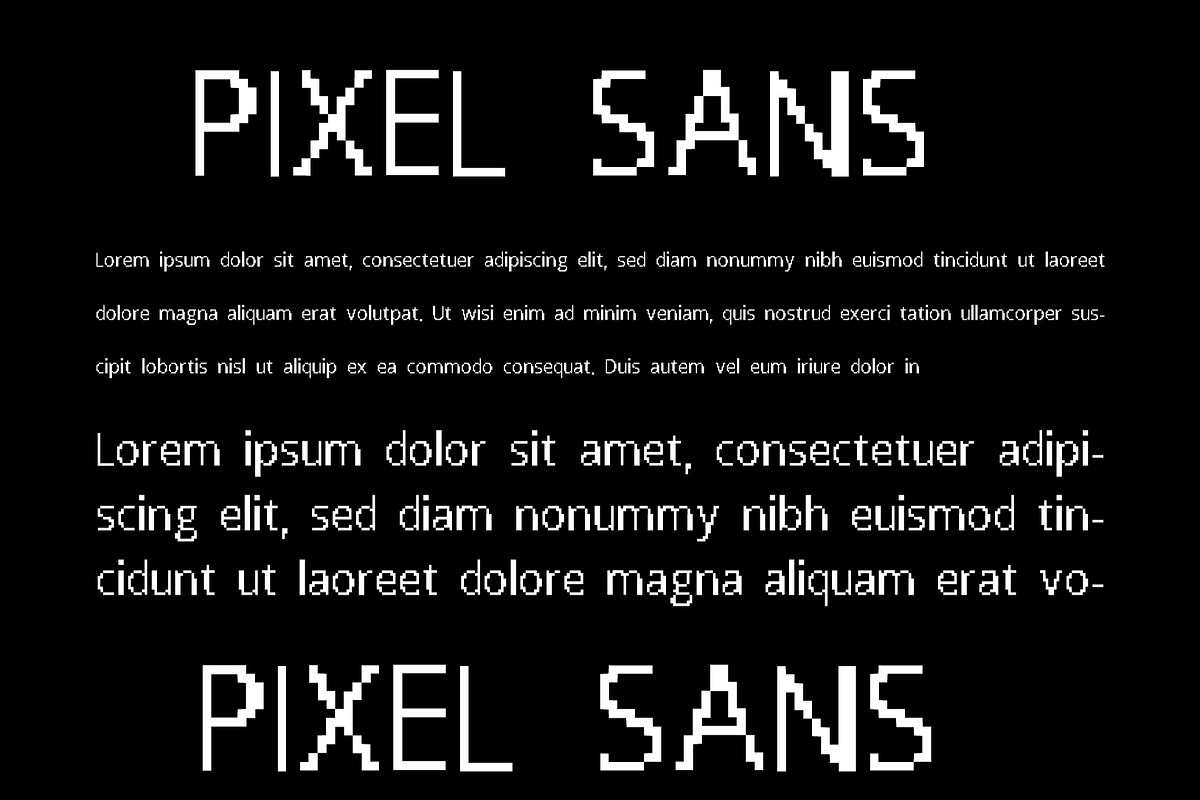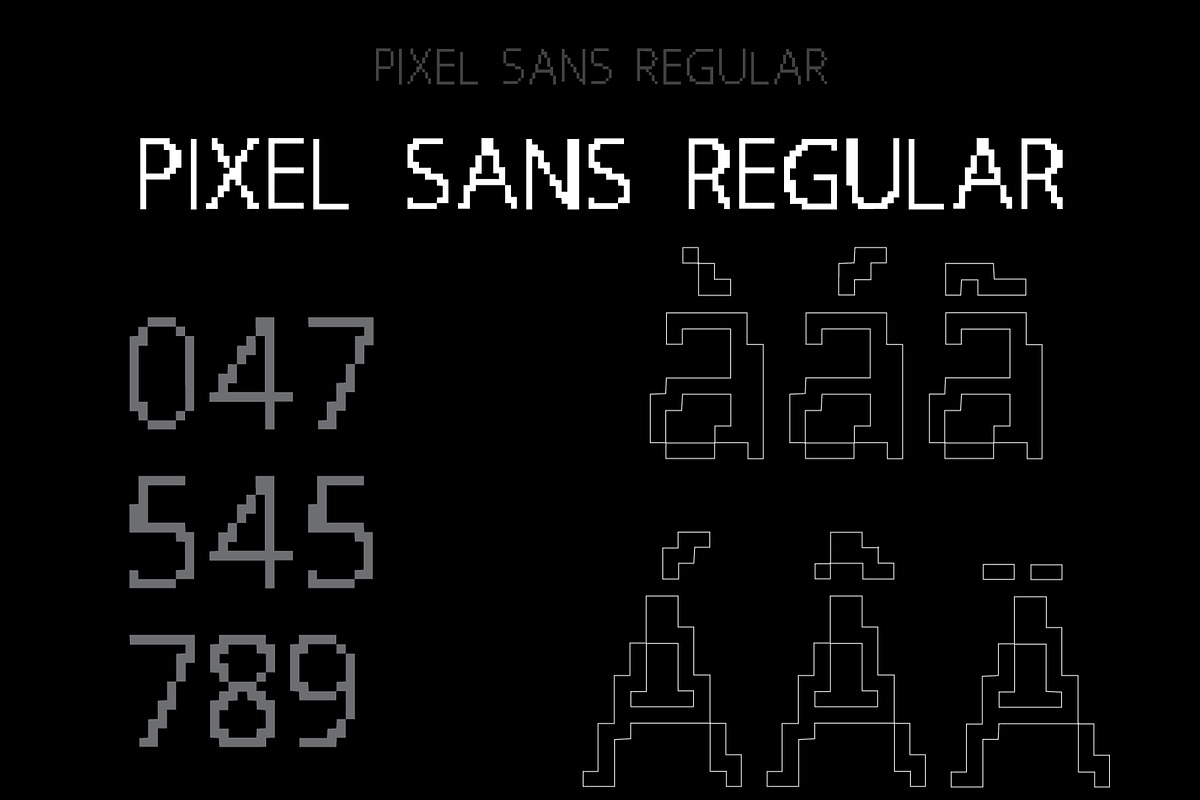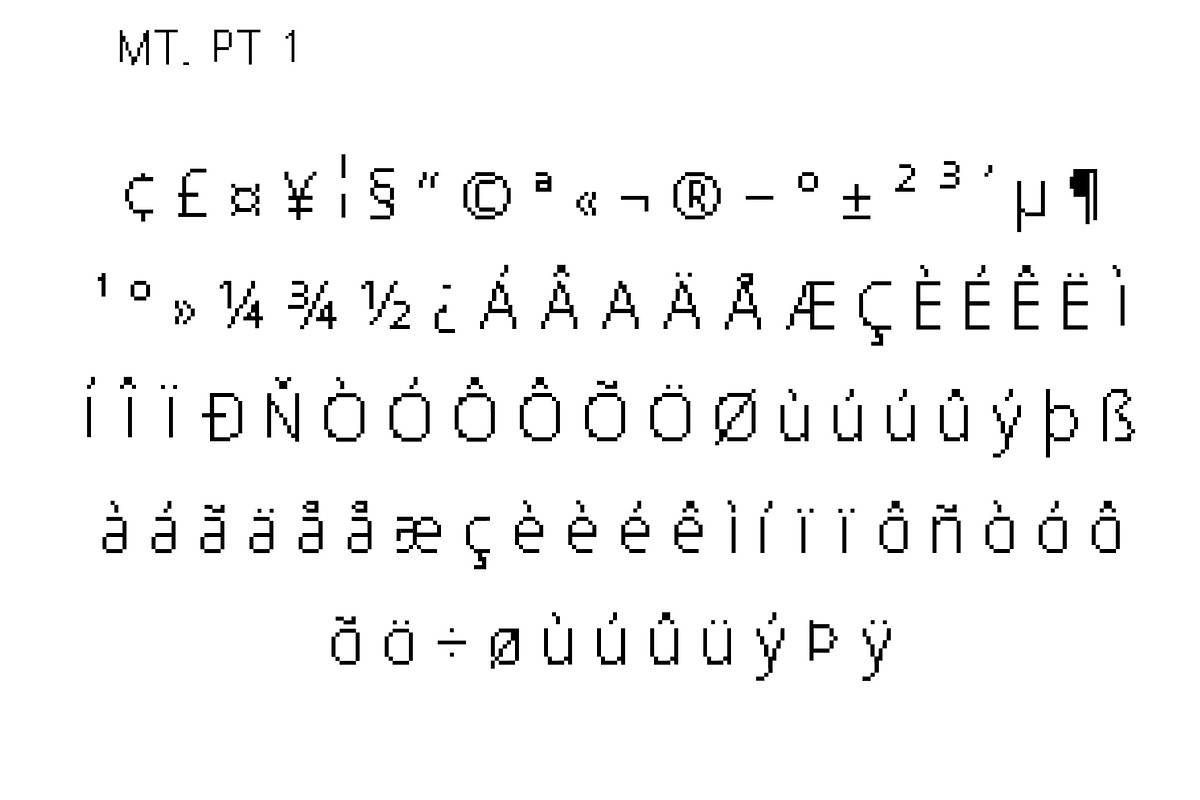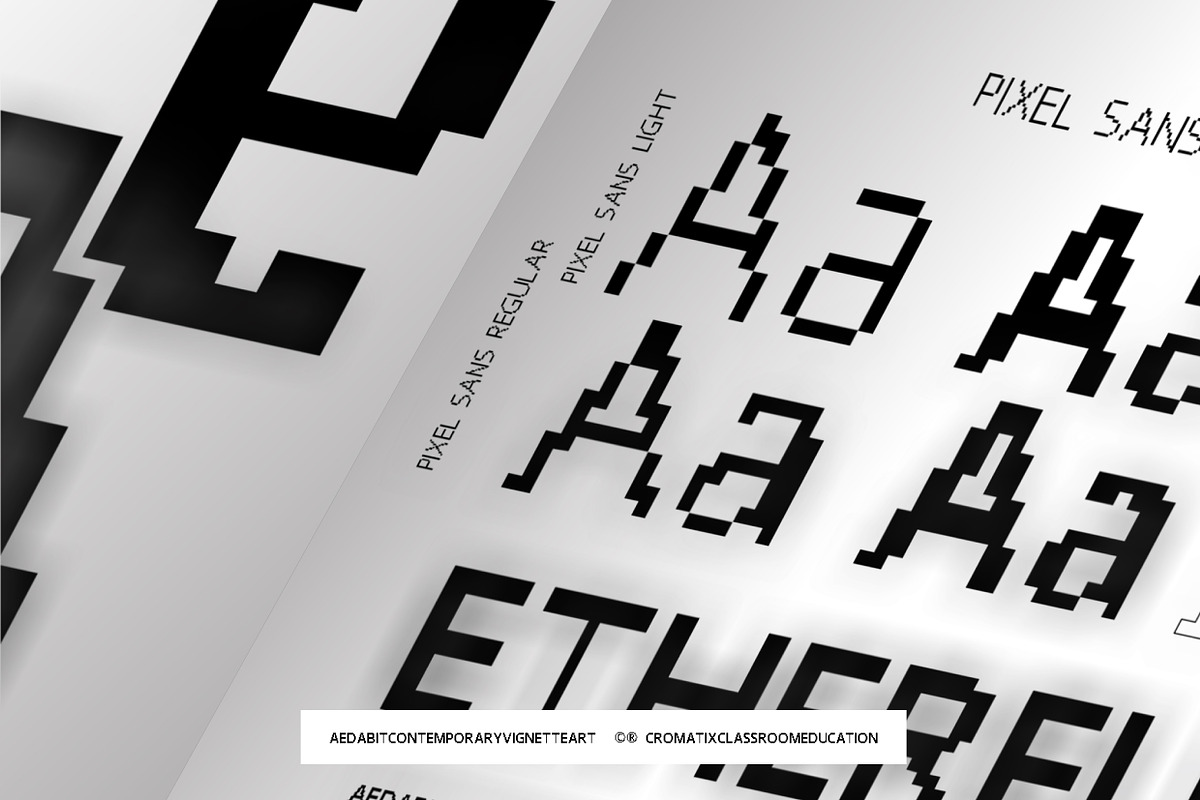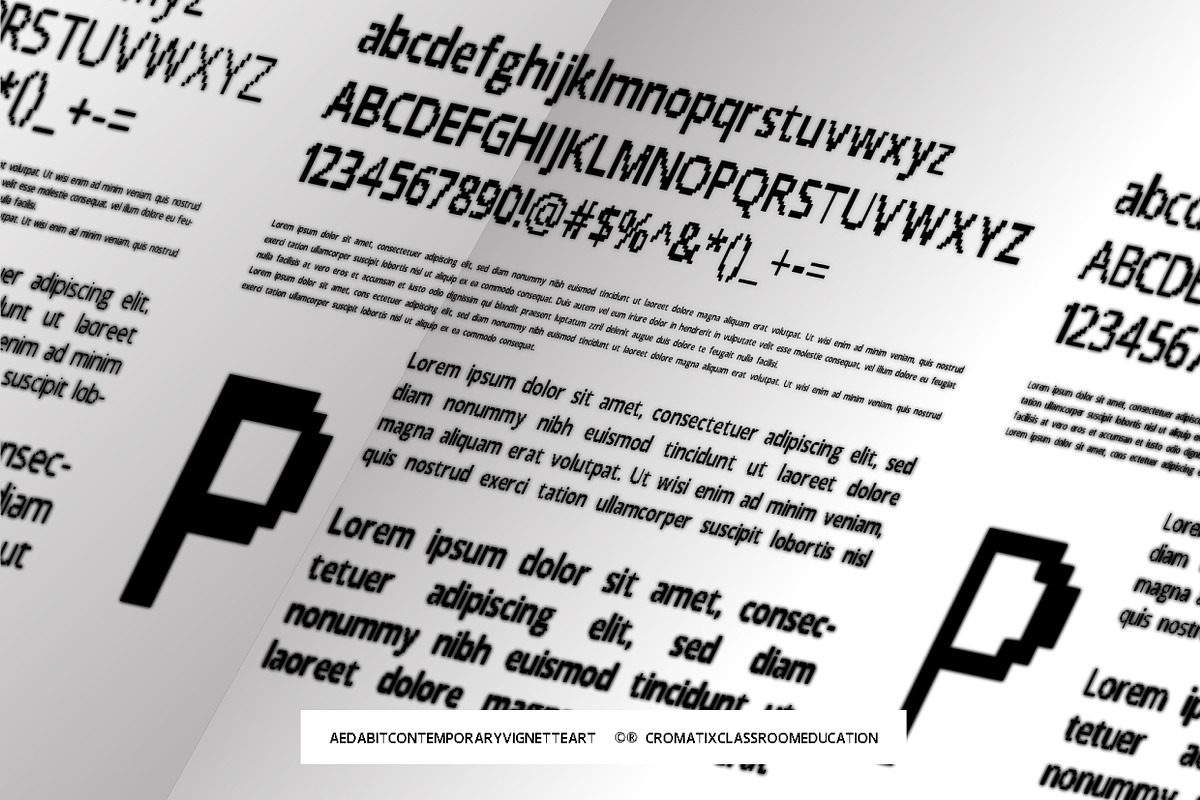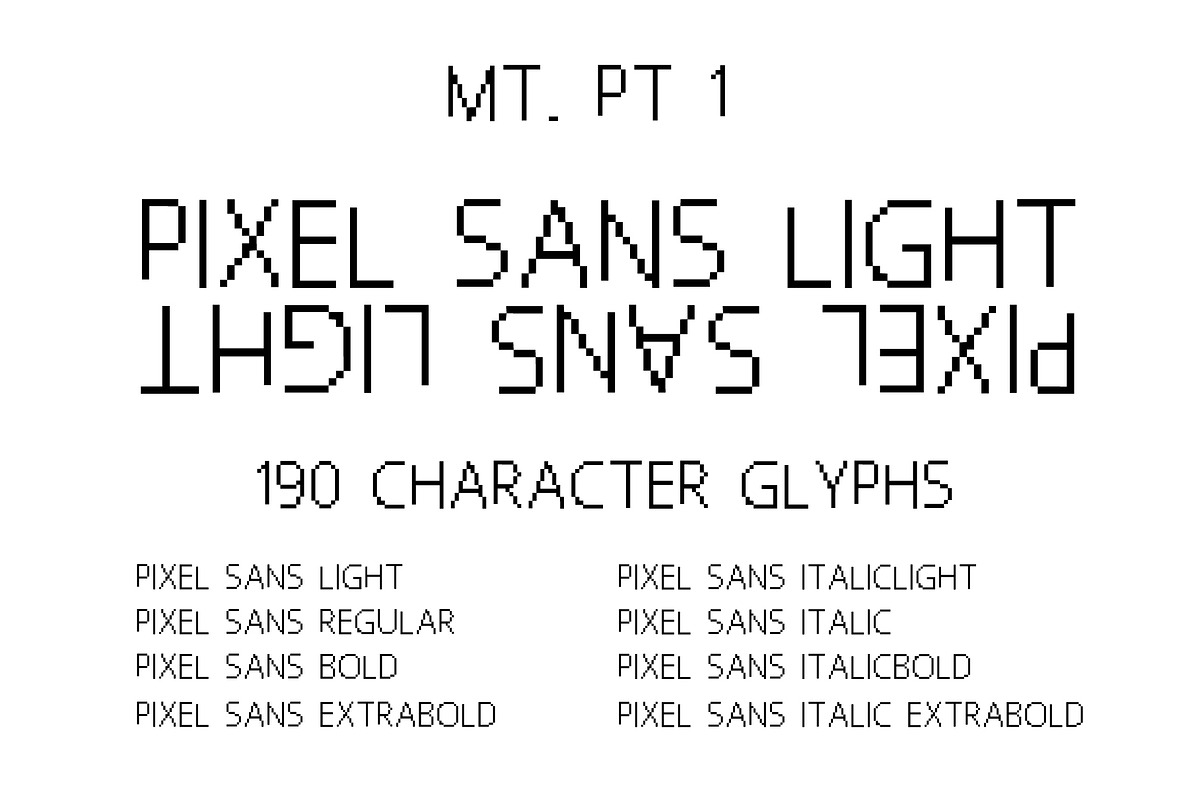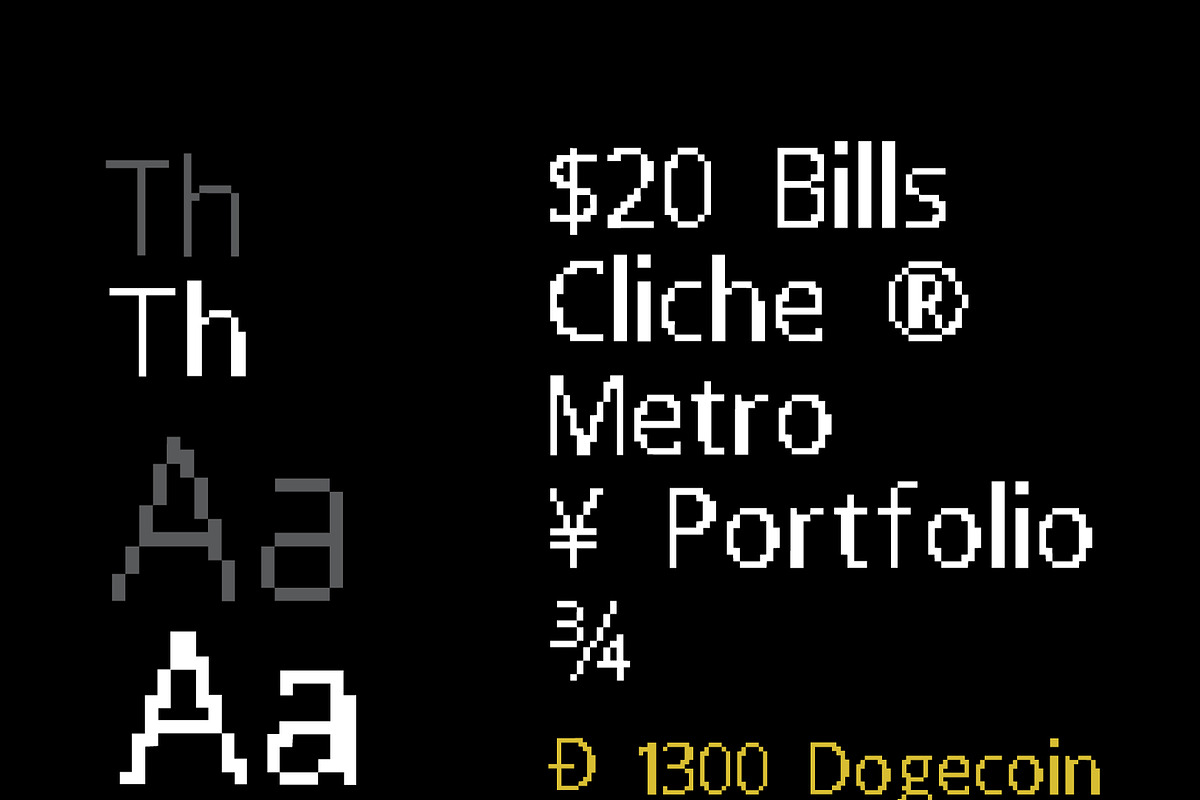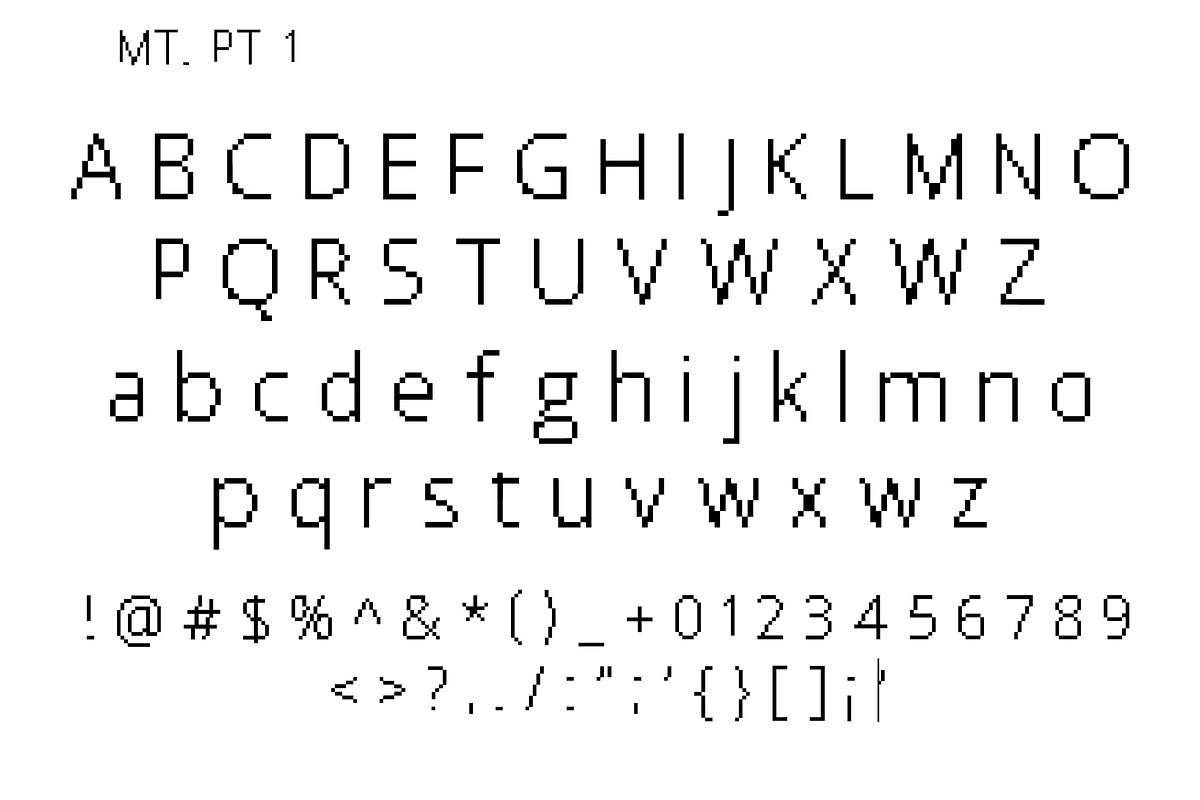
Pixel Sans Font Family MT, 1,3
Sans serif is a typeface that lacks the small lines or "feet" that extend off of letters, called serifs. The word "sans" is French for "without". Sans serif typefaces are often used to convey simplicity, modernity, or minimalism. They can also be a good choice for conveying a friendly, approachable vibe. Many companies choose sans serif typefaces when they want to be seen as young, hip, and casual